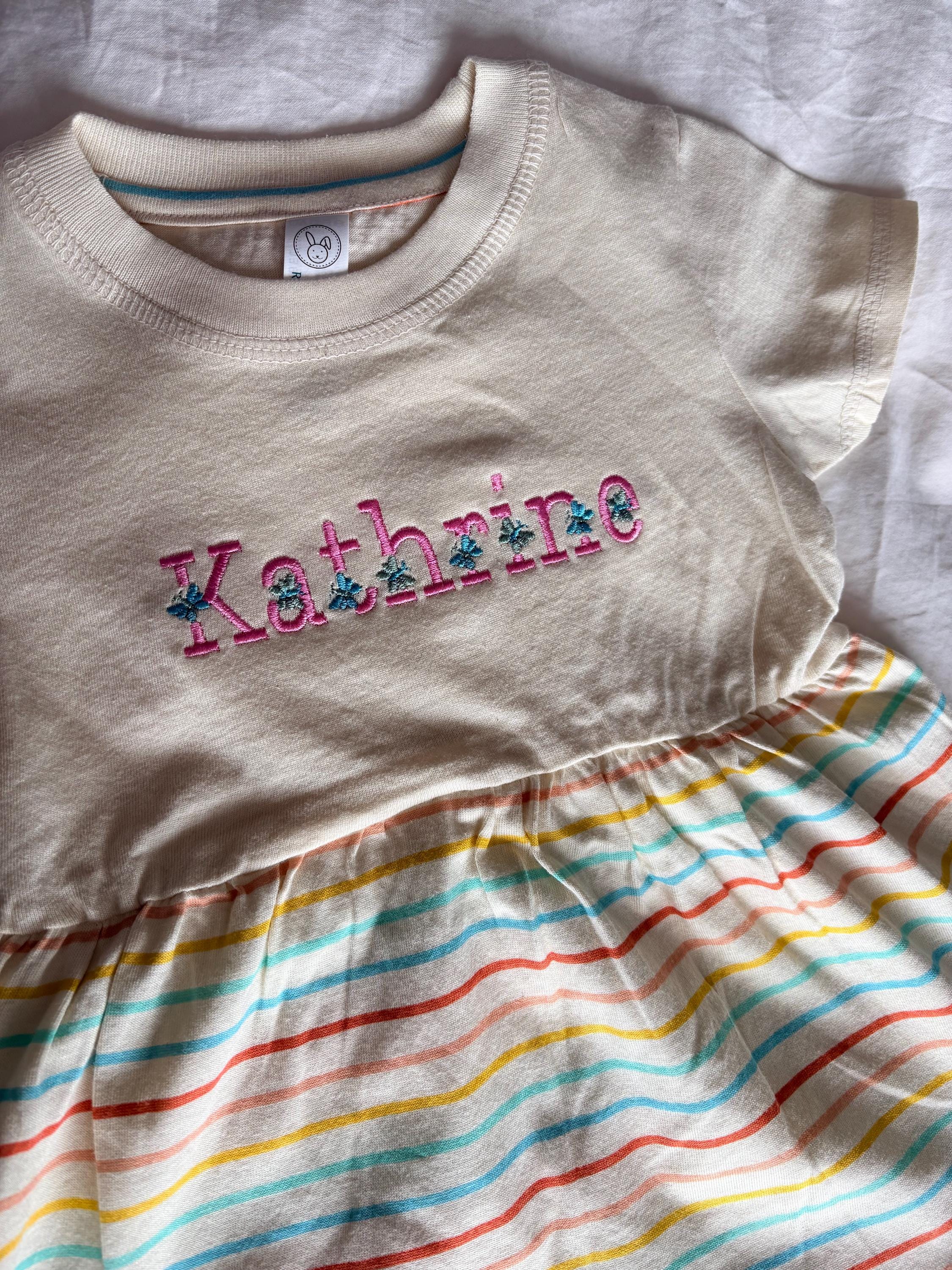
Satin stitch mini Butterfly Font SET of 2 types Alphabet letters little girls kids Monogram machine embroidery designs sizes 1 up to 2 inch
Included 2 fonts:
* plain font whole alphabet: uppercase and lowercase letters, numbers, and punctuation
* butterfly font: uppercase and lowercase letters, and numbers.
This butterfly font stitched out beautifully. My customer loved the custom blanket for their bearded dragon. I’ll keep this shop in mind for future designs and fonts.
This butterfly font stitches out really well!